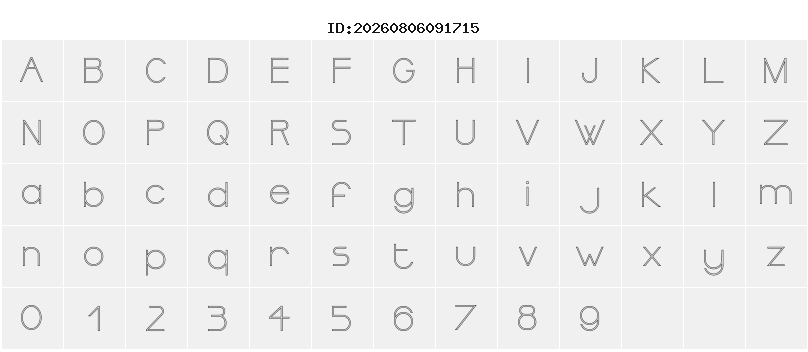
• Font Name: Ormont_Outline
• Full Font Name: Ormont Outline
About Ormont_Outline.ttf
Ormont_Outline.ttf is a modern, elegant sans-serif font designed for ultimate readability and visual harmony. Perfect for branding, headlines, web design, and print materials.